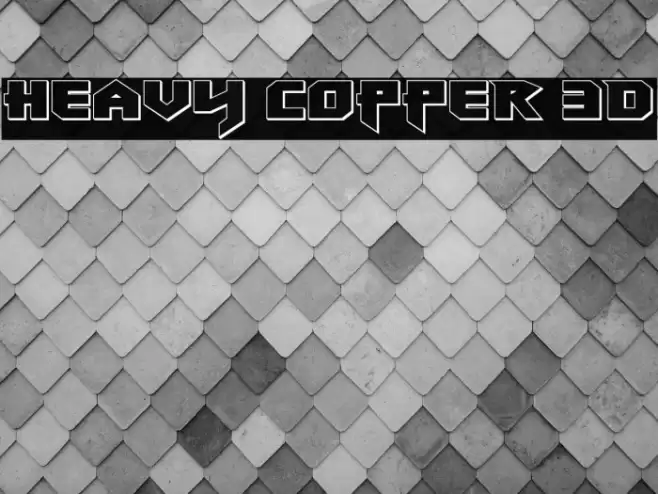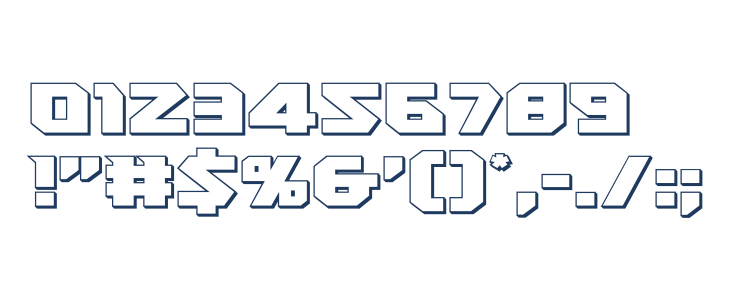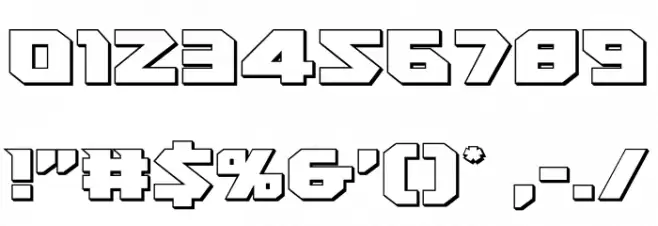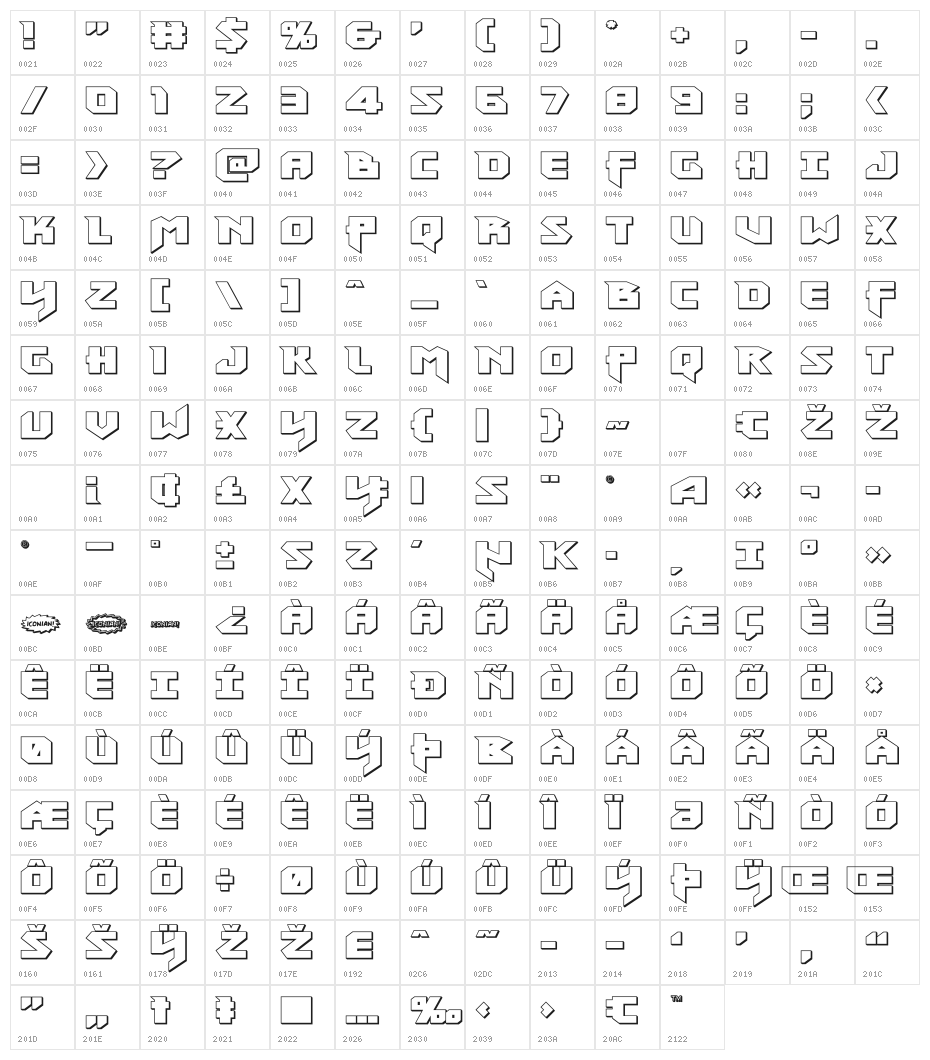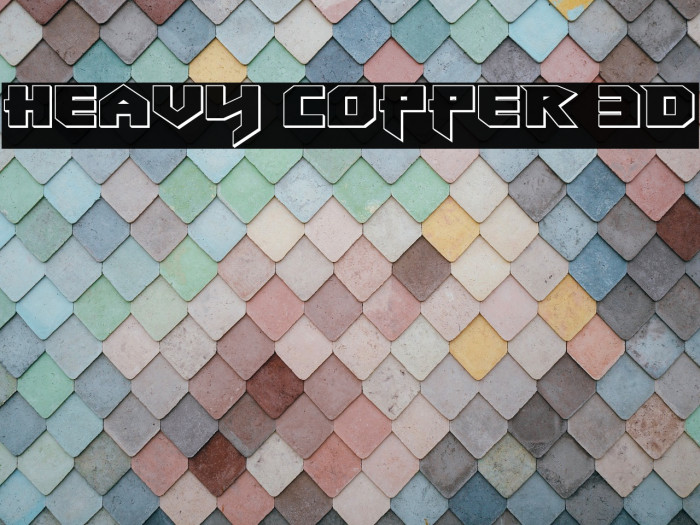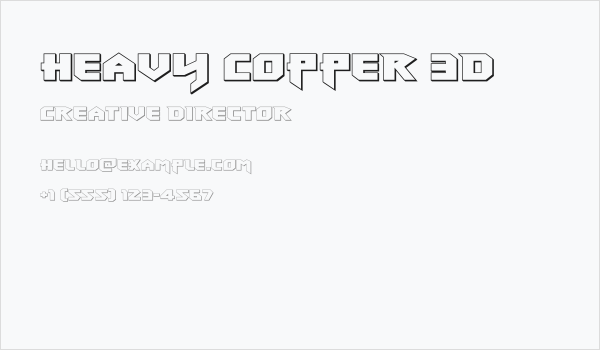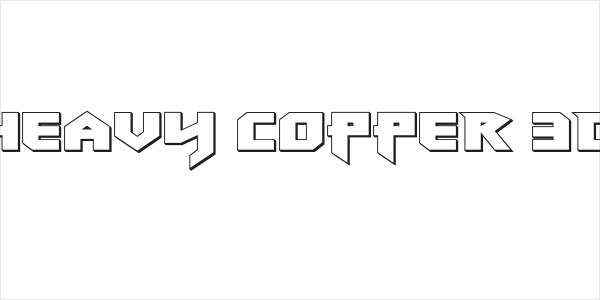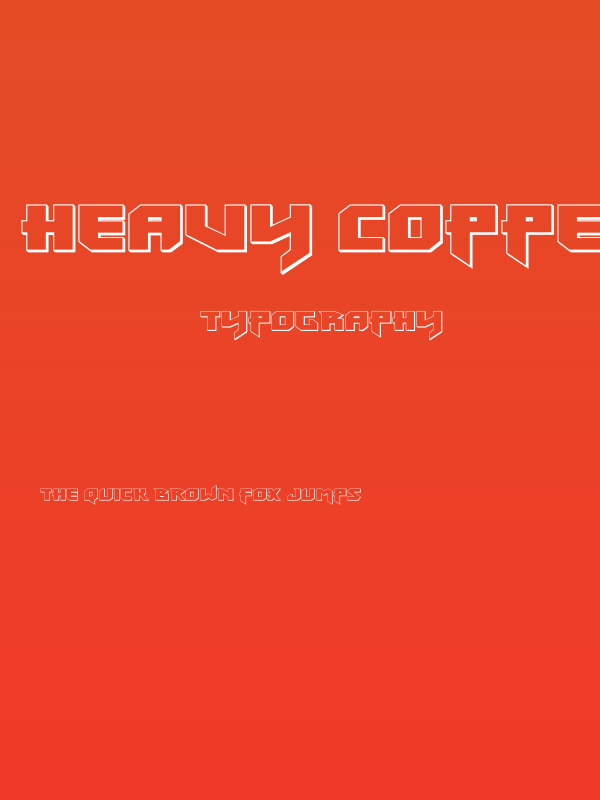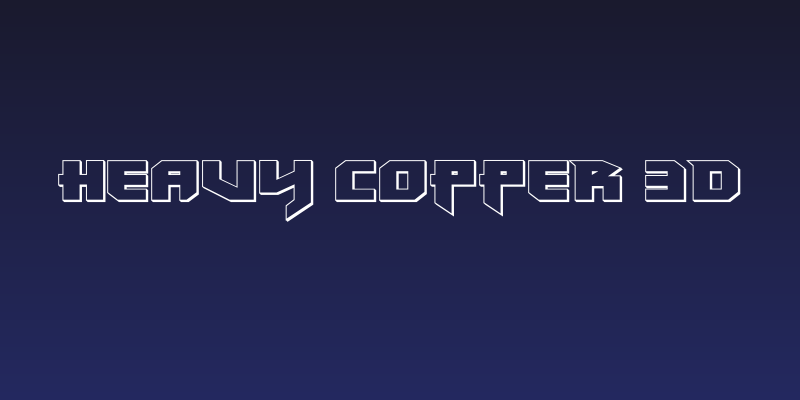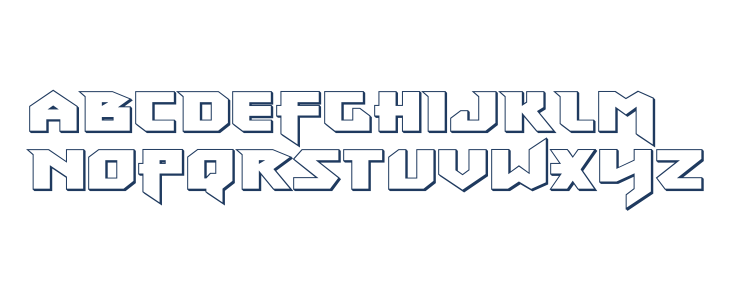
Heavy Copper 3D Font
Heavy Copper 3D Description
This font features a bold, geometric design with a three-dimensional effect, giving it a striking and modern appearance. The characters are constructed with sharp angles and thick lines, creating a sense of depth and solidity. The uppercase and lowercase letters maintain a consistent style, with the lowercase mirroring the uppercase in form and structure. The numerals and special characters are designed to match the bold and angular aesthetic, ensuring a cohesive look across all glyphs. This font's unique style makes it stand out, ideal for projects that require a strong visual impact.
A bold, geometric font with a 3D effect and sharp angles from Uncategorized fonts.
- Proposed Projects: Ideal for video game titles, movie posters, branding for tech companies, and any project requiring a futuristic or edgy look.